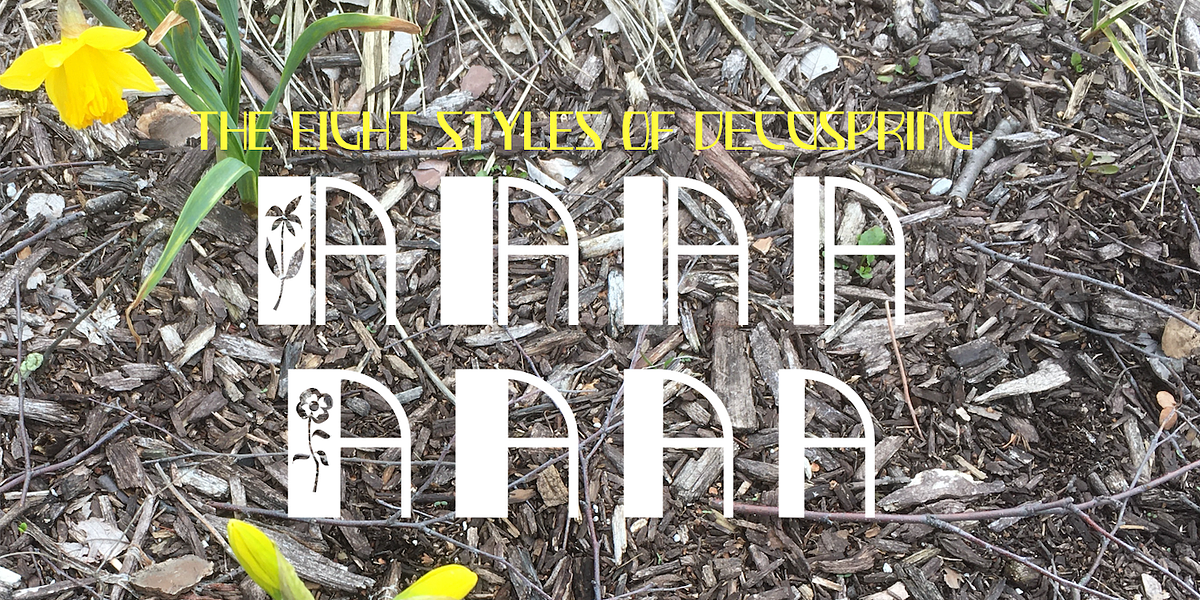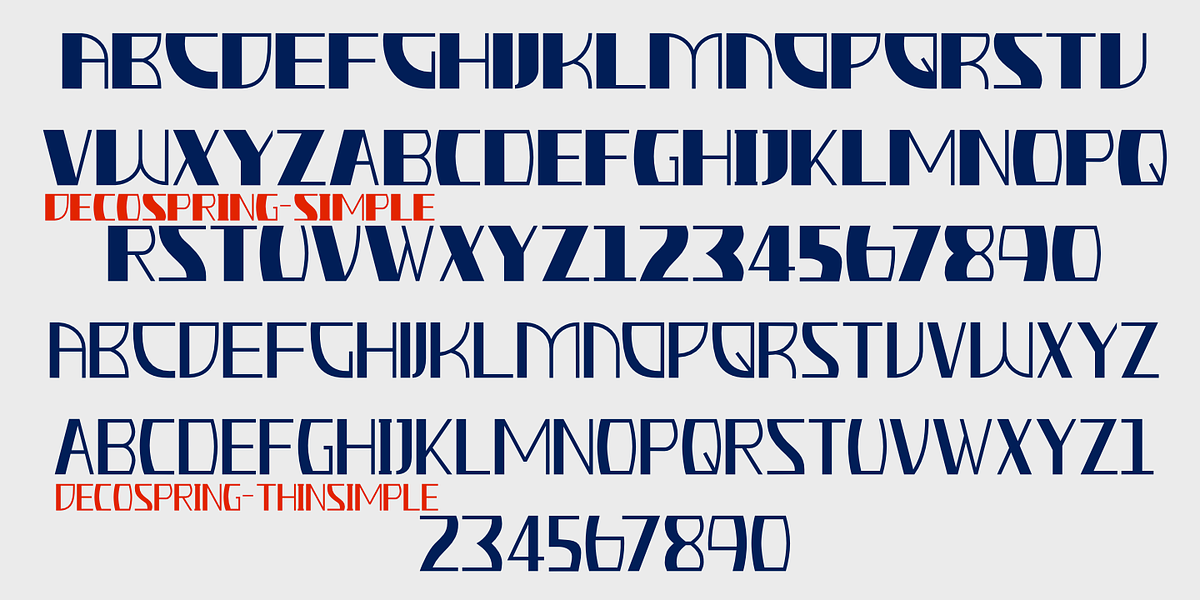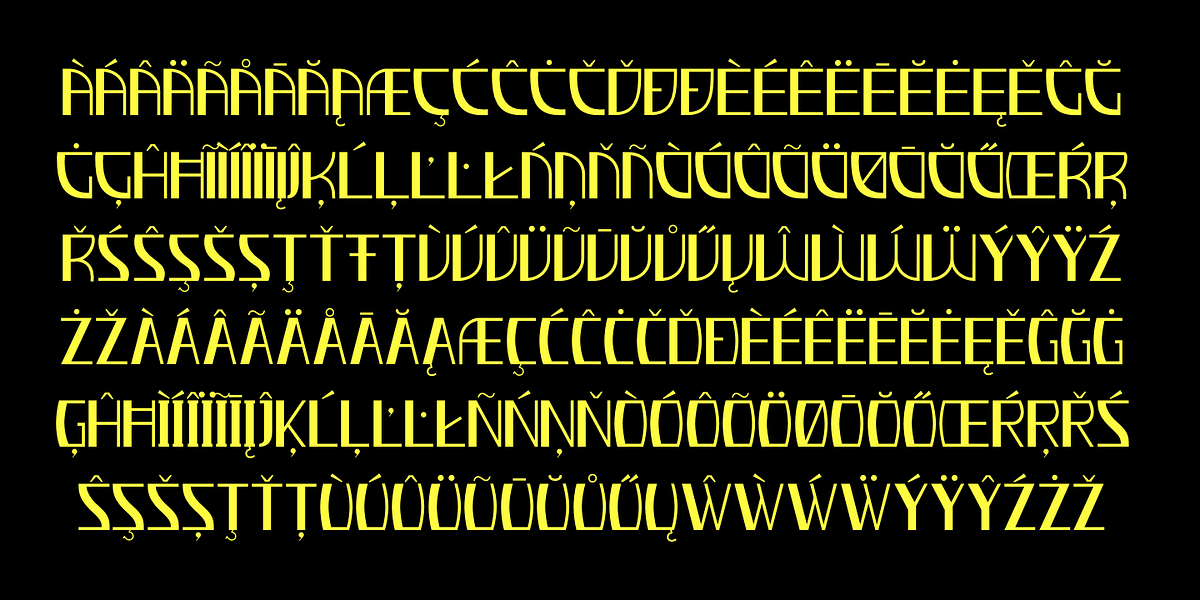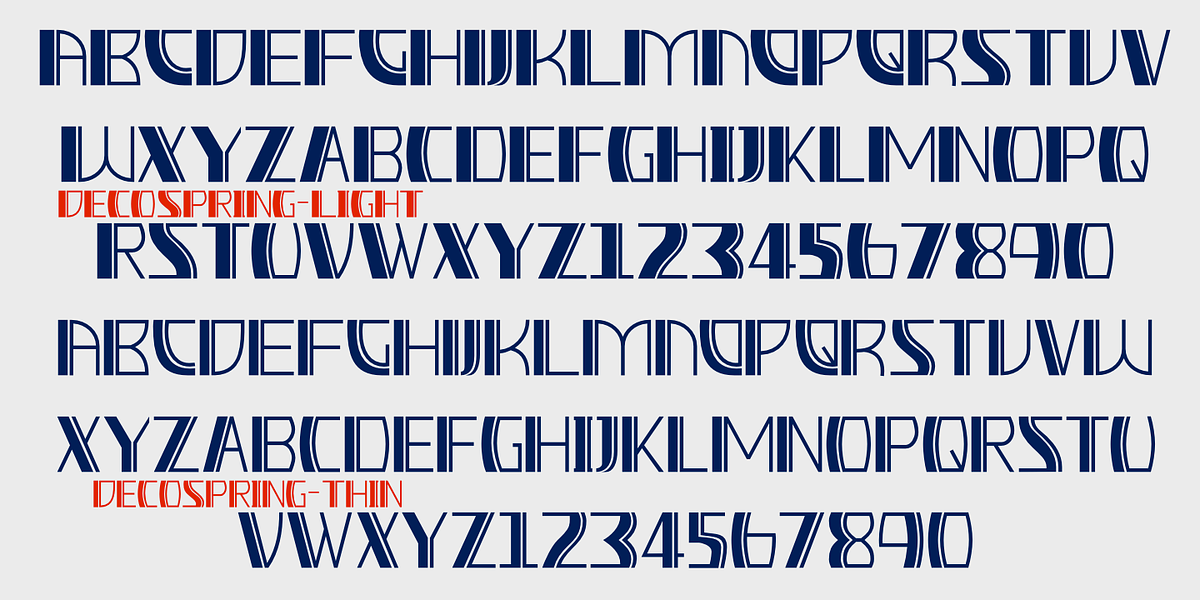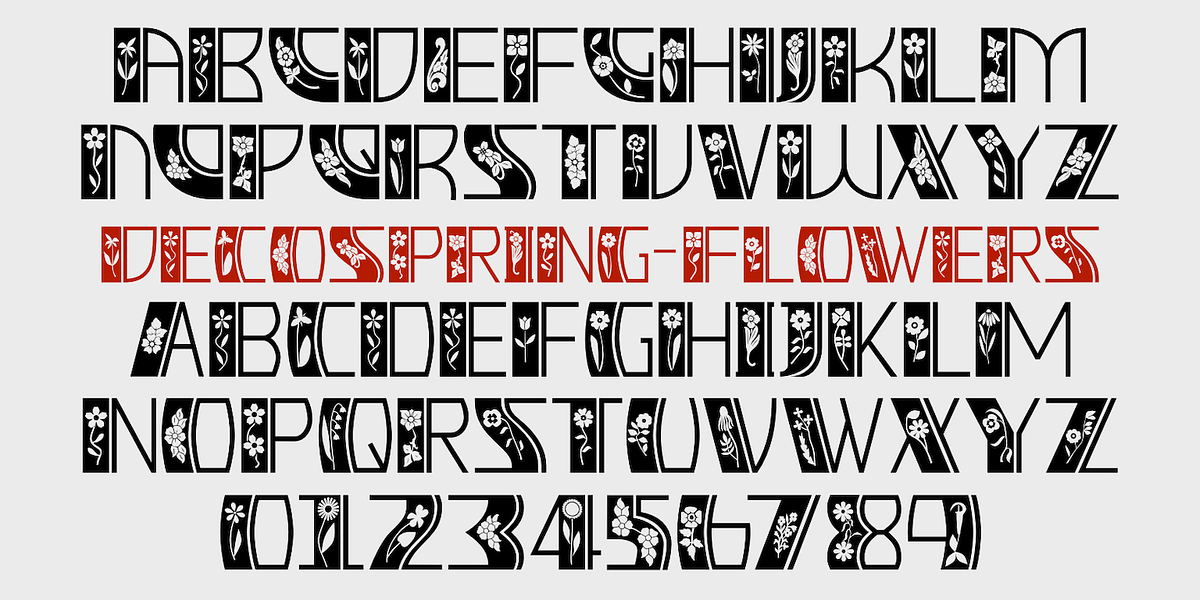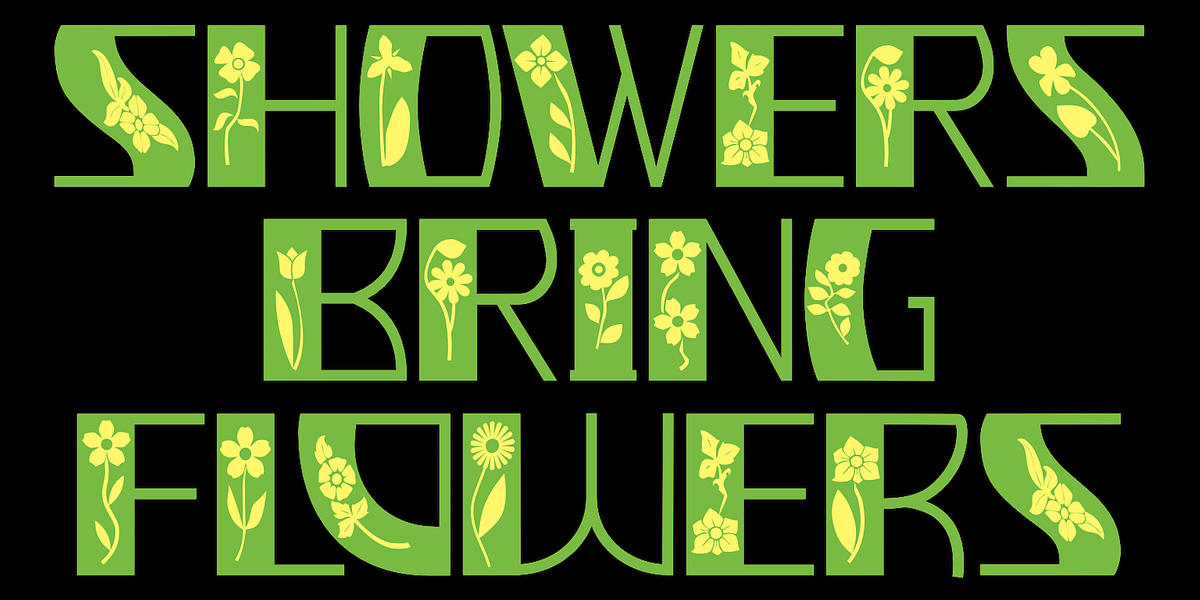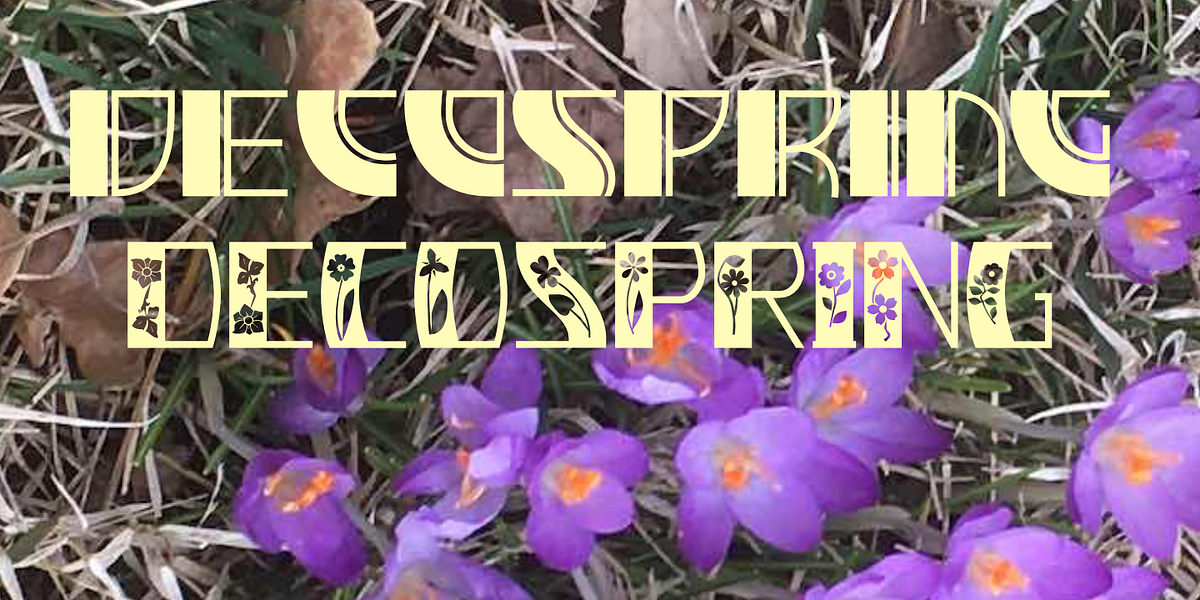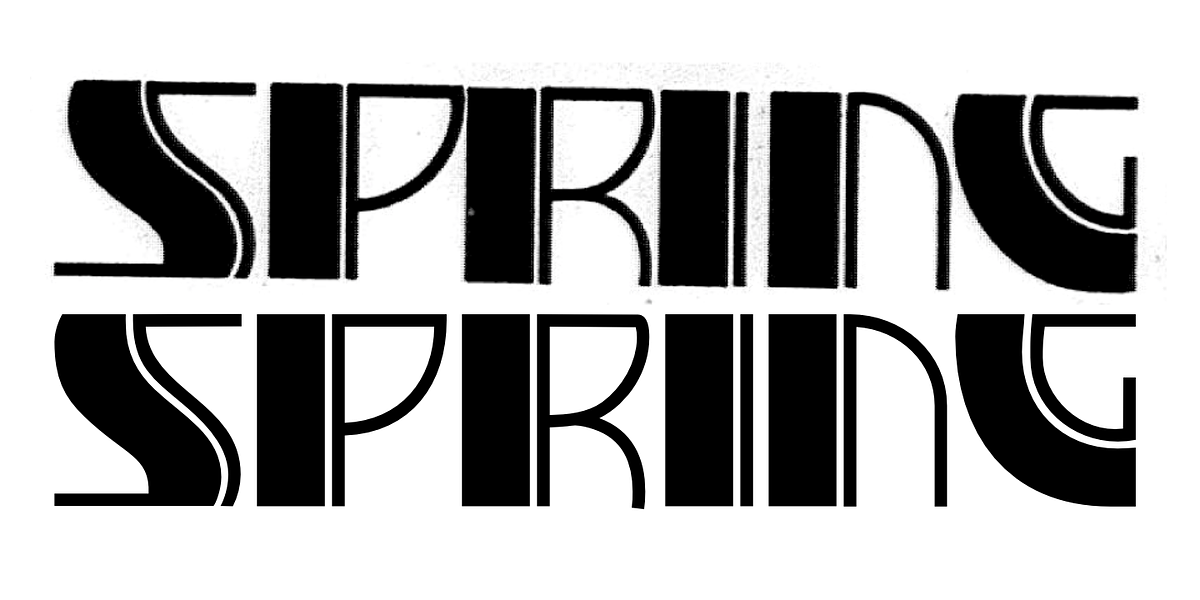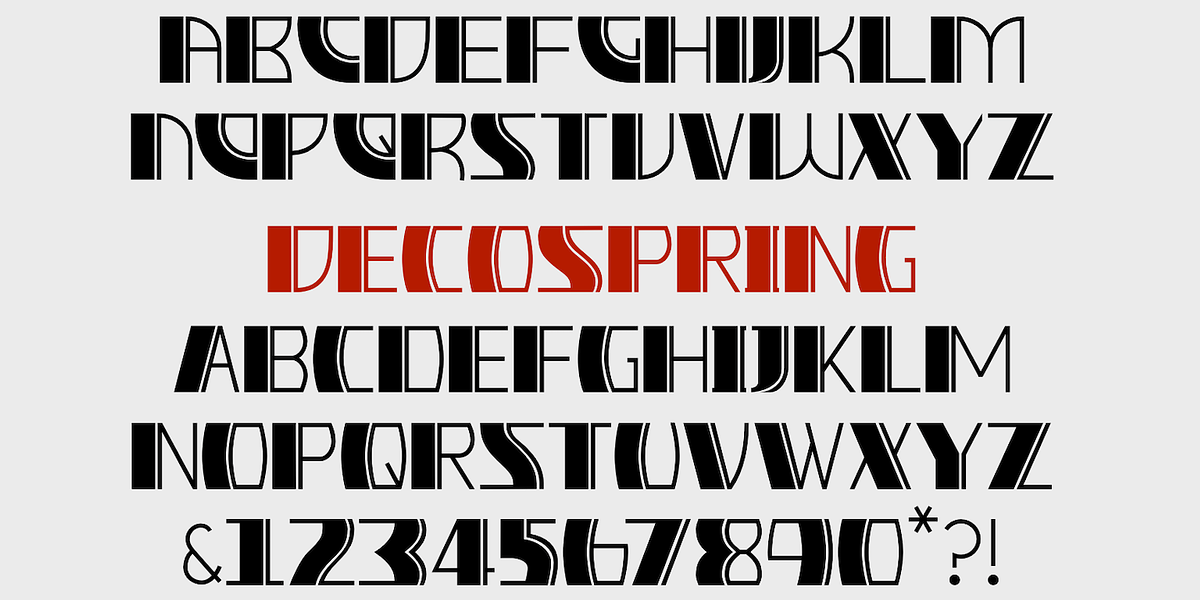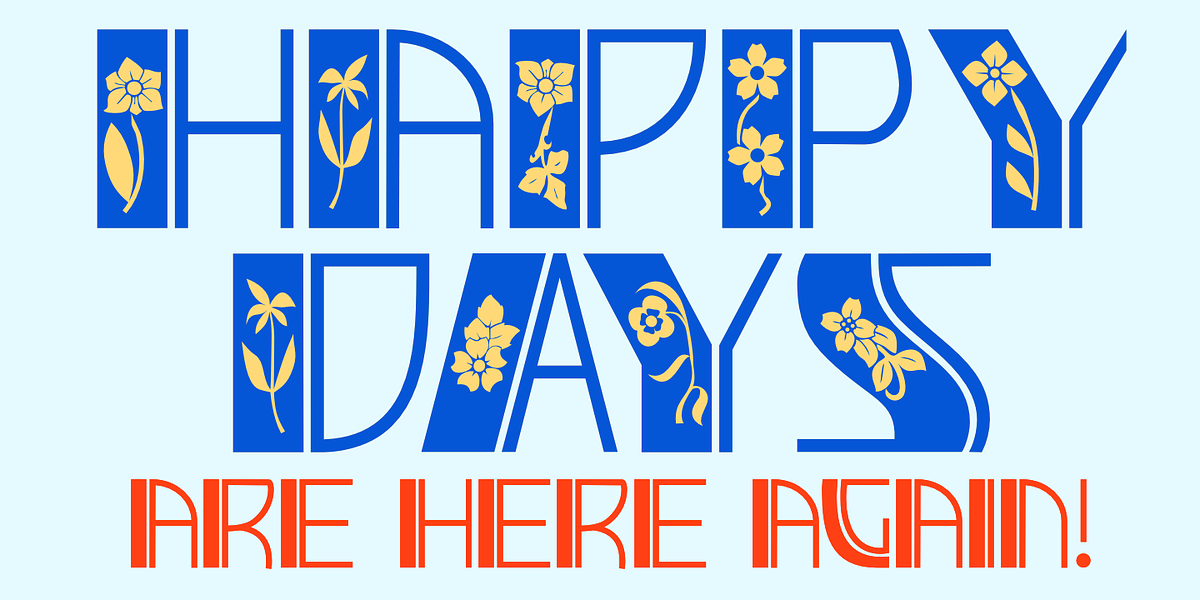
DecoSpring
DecoSpring is an art deco display font family inspired by a vintage advertisement. It features a unique design with thick stems adorned with floral decorations. The typeface comes in various weights and includes alternative capital letters accessible through the lowercase keys. DecoSpring is best suited for headlines, posters, and signage where its ornate style can make a statement.